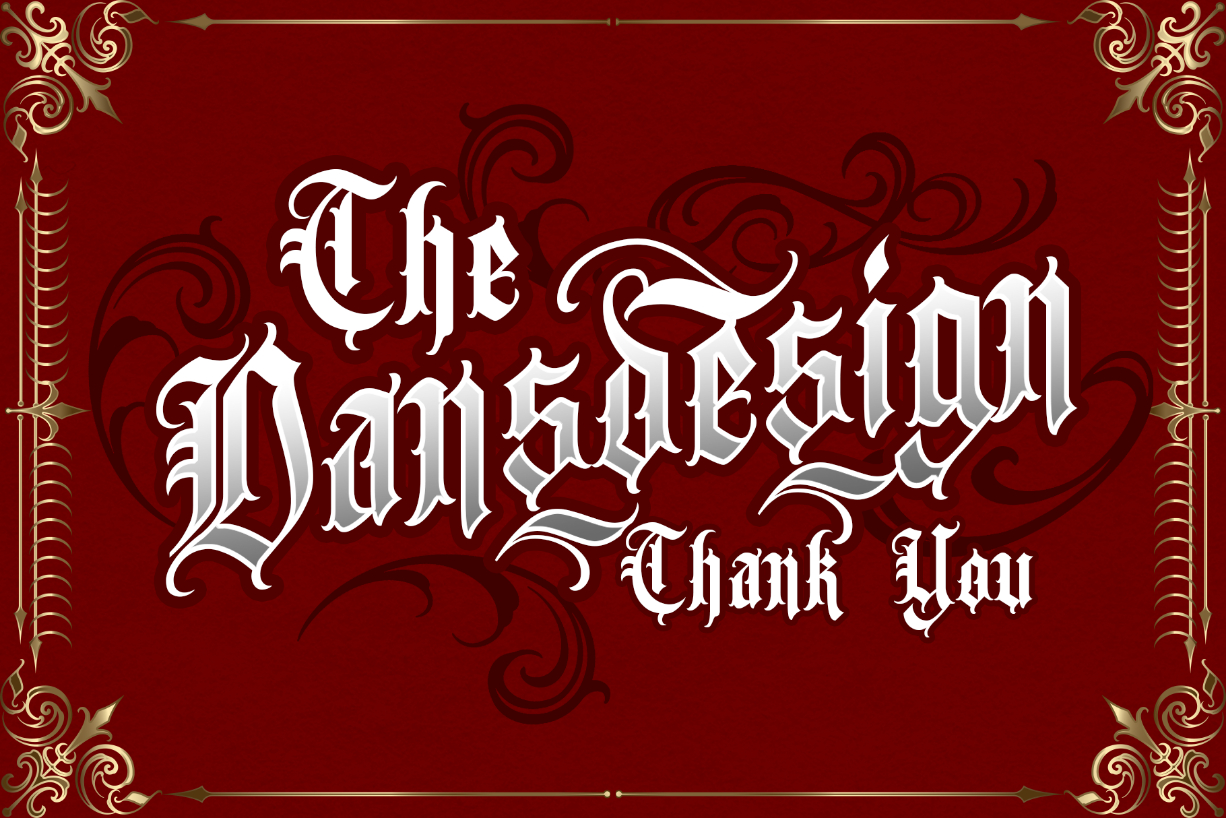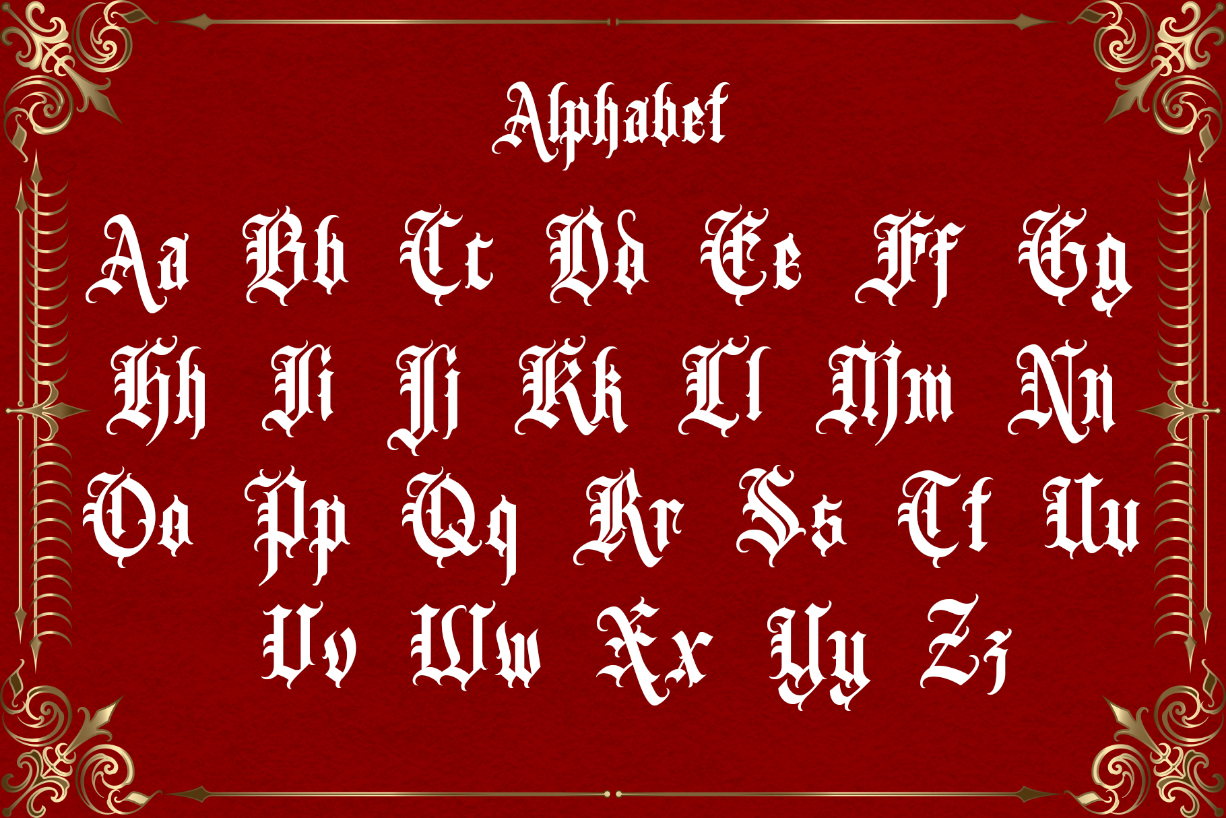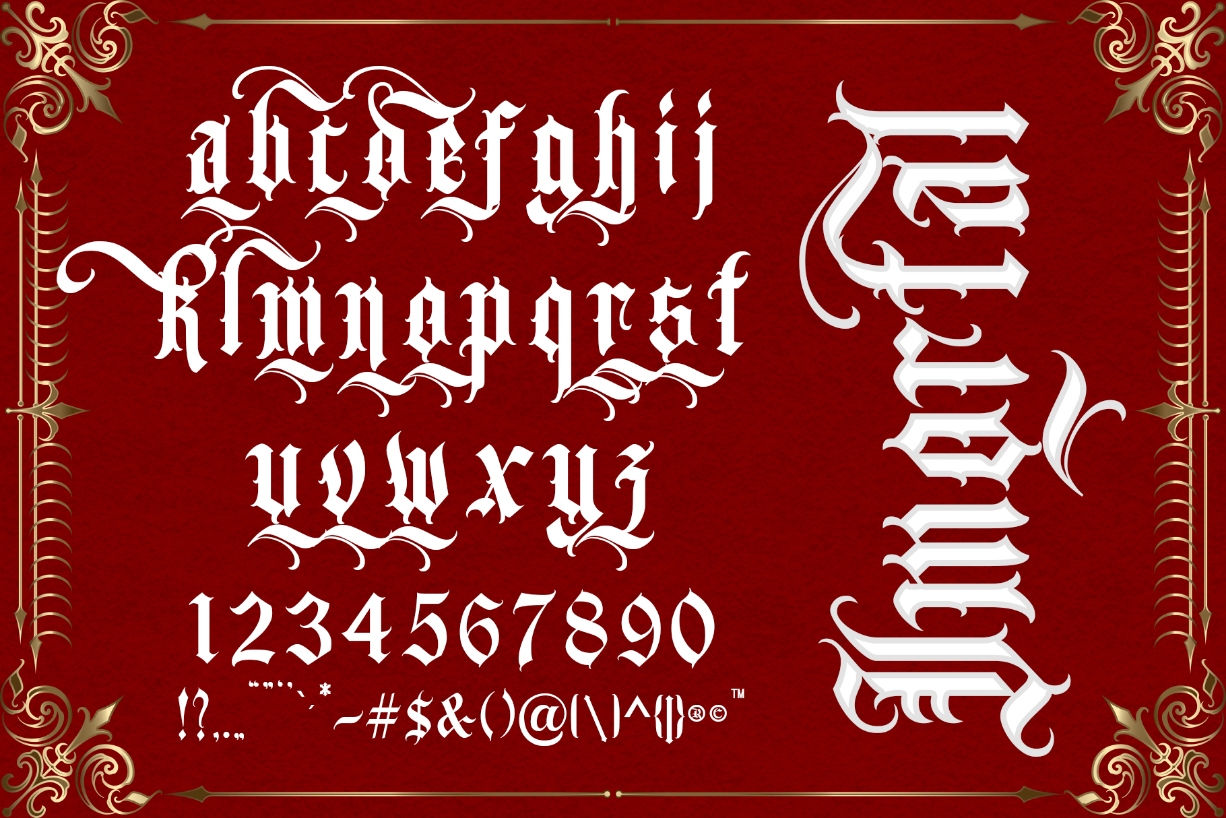
About Shention Font
Shention is an authentic and highly detailed blackletter font. It has a vintage feel, and as a result, it matches a wide variety of designs. Fall in love with its bold, creative style, and use it for your next creative project!